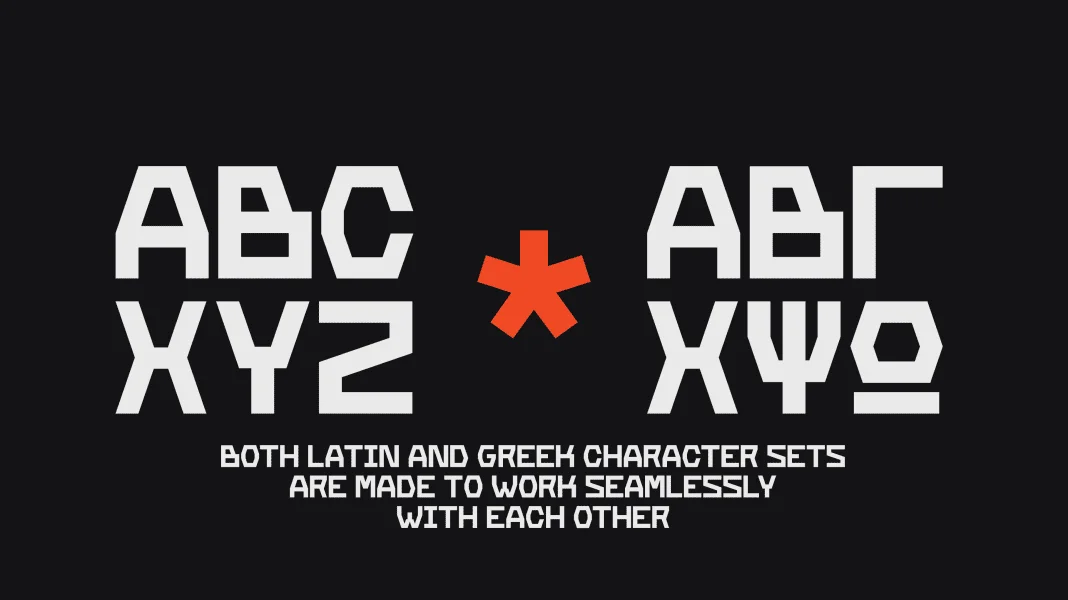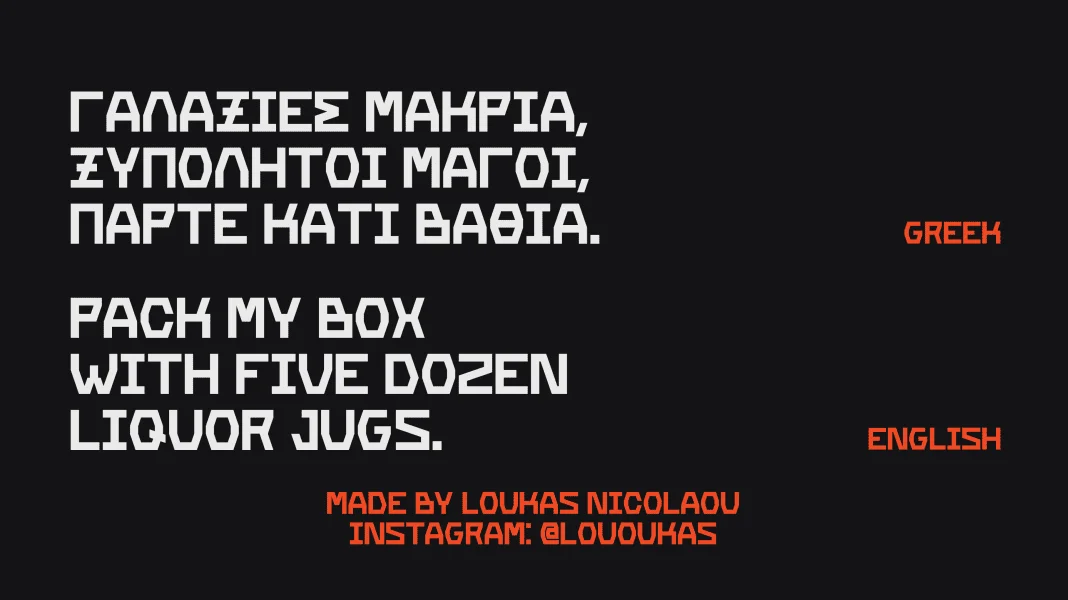
Courbe Sans is an Experimental, Heavy, Geometric display typeface inspired by the Constructivist movement and industrial signage.
Featuring a core set of 76 unique Uppercase, Numeral and punctuation designs with full Latin and Greek support.